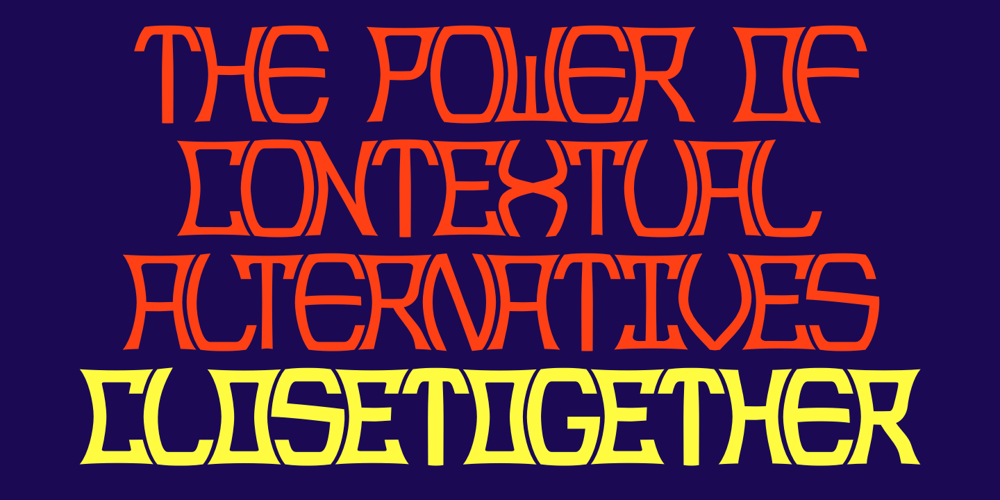
Close Together Font Family was designed by Robert Schenk and published by Ingrimayne Type. Close Together contains 3 styles and family package options. Close Together was designed to alternate convex and concave letter sets, with convex letters on the upper-case keys and concave shapes on the lower-case keys. The OpenType feature of contextual alternatives (calt) does this automatically. Individually some of the letter shapes are strange and unsightly. They have the shapes that they have so that they fit snuggly with adjacent letters. The family has three weights: regular, bold, and extrabold.The letter spacing is set very tight and the user may want to loosen it by altering characters spacing. (Either the convex or concave set the letters can be used alone if the character spacing is adjusted.) The typeface has four OpenType stylistic sets of alternates, one for numbers and the others for letters D, T, and Y.